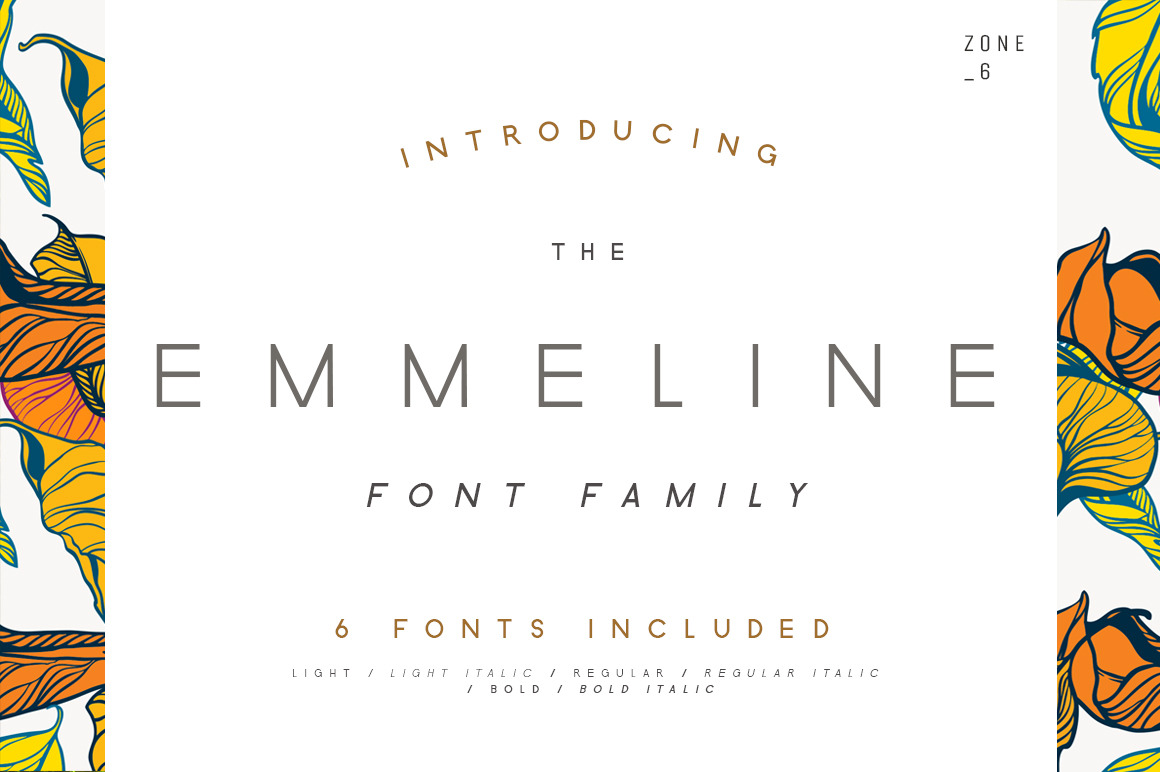
Emmeline Font Family
Instantly Add Elegance To Your Branding!
Whether you’re designing for a client or for yourself, you may have struggled to find fonts that work well together, whilst retaining a luxurious and sophisticated feel.
Introducing Emmeline, an elegant all caps sans serif font family - perfect for any project you need to add a little refinement to.
Emmeline is timeless, elegant and minimal. It achieves this through its clean lines, subtle angles and perfect rounding. Emmeline is a versatile family, including 3 different weights in upper case. Italics for each weight are also included, adding to its opulence. Emmeline is perfect for corporate projects, branding, publishing, editorial, and logotypes, but is also adaptable and versatile enough to be used for multiple different projects…
…making this your new go-to sans serif family!
- Western European characters included
- Numbers and punctuation included
- Optimized kerning for aesthetic and highly readable texts
- 3 different weights allow for headlines, subheadings and short to mid-length texts